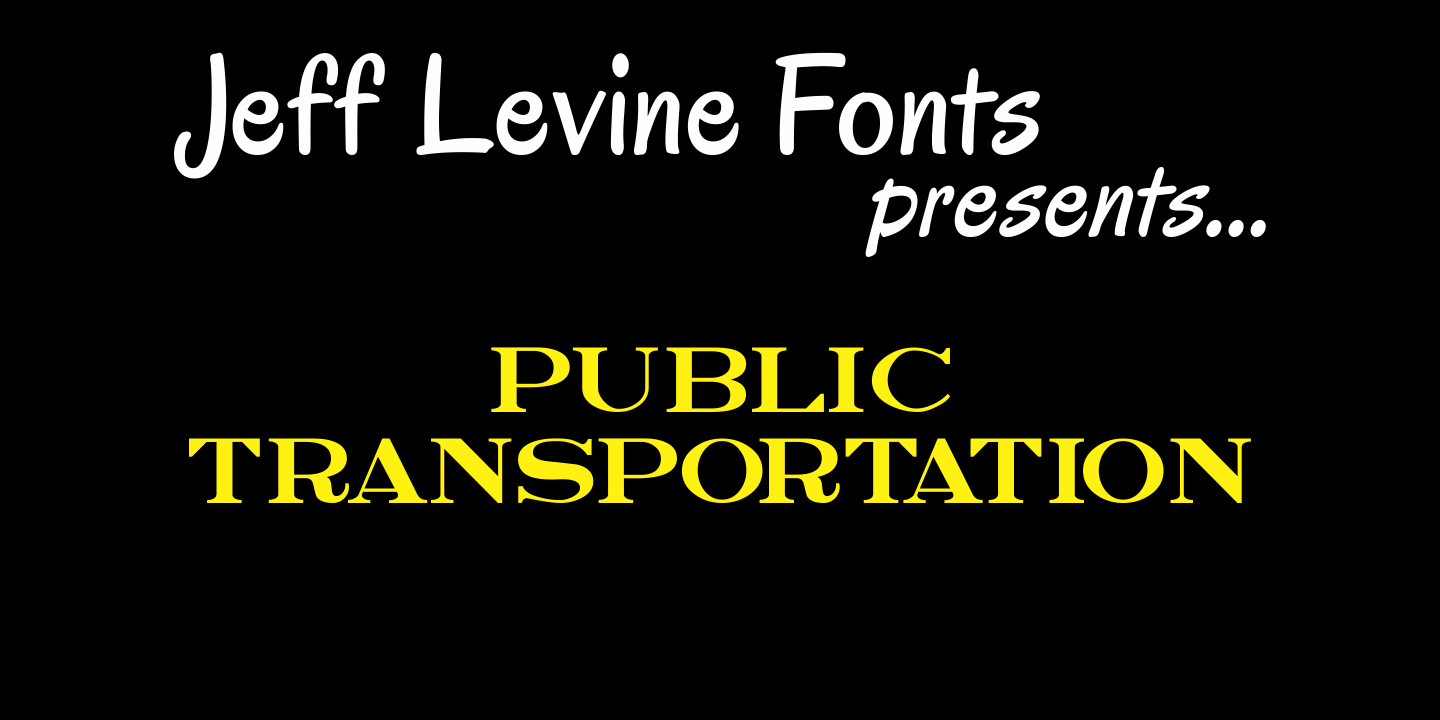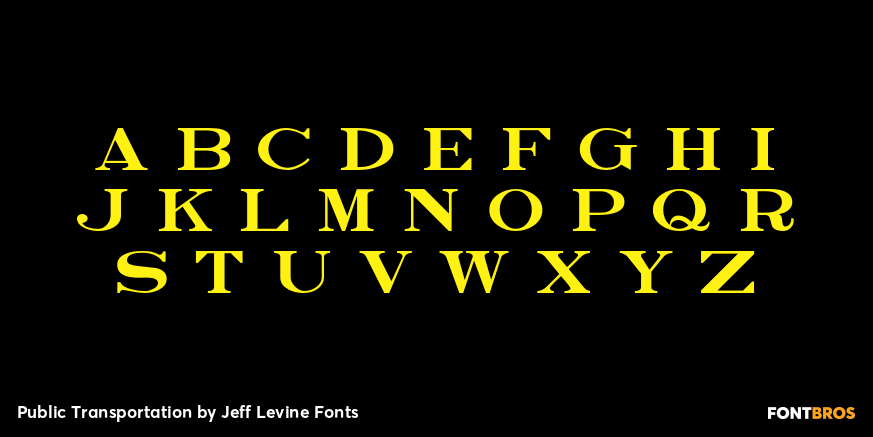
Public Transportation
On the sides of freight cars, passenger trains, trolleys, buses and cable cars was once found identifying letters and numbers with a bold, yet quaint hand-painted look. Public Transportation JNL emulates the old-style look of those bygone years.